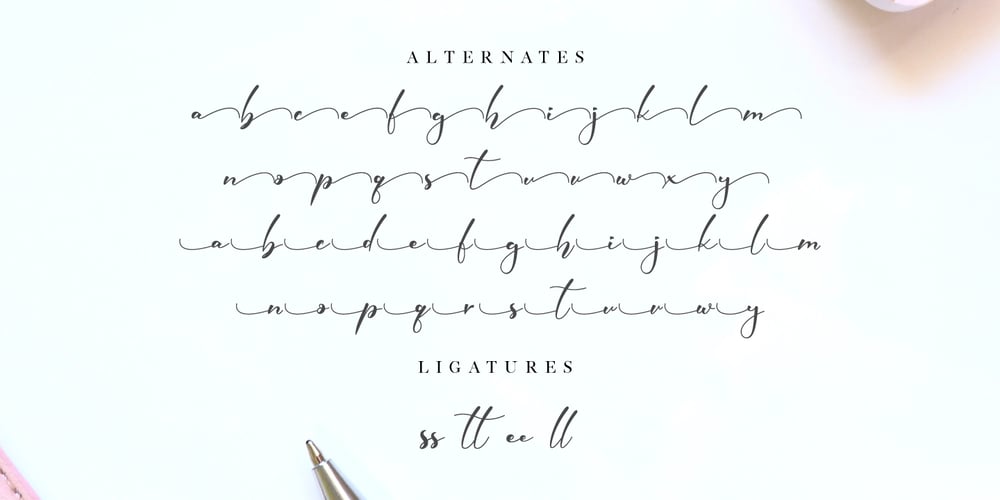
Elmira Font Family was designed by Novia Himatunnisa and published by Nissa Nana. Elmira contains 1 styles and family package options. Elmira is a beautiful script font with a fresh and contemporary twist. Get inspired by its unique charm!